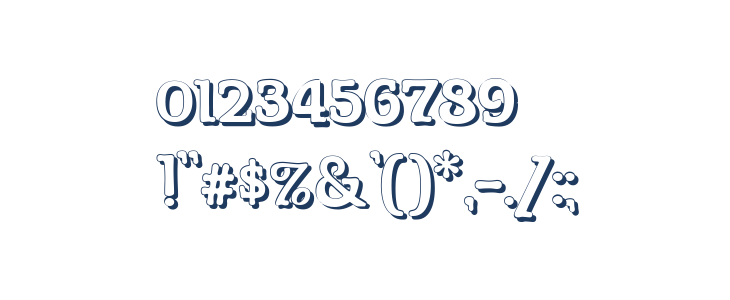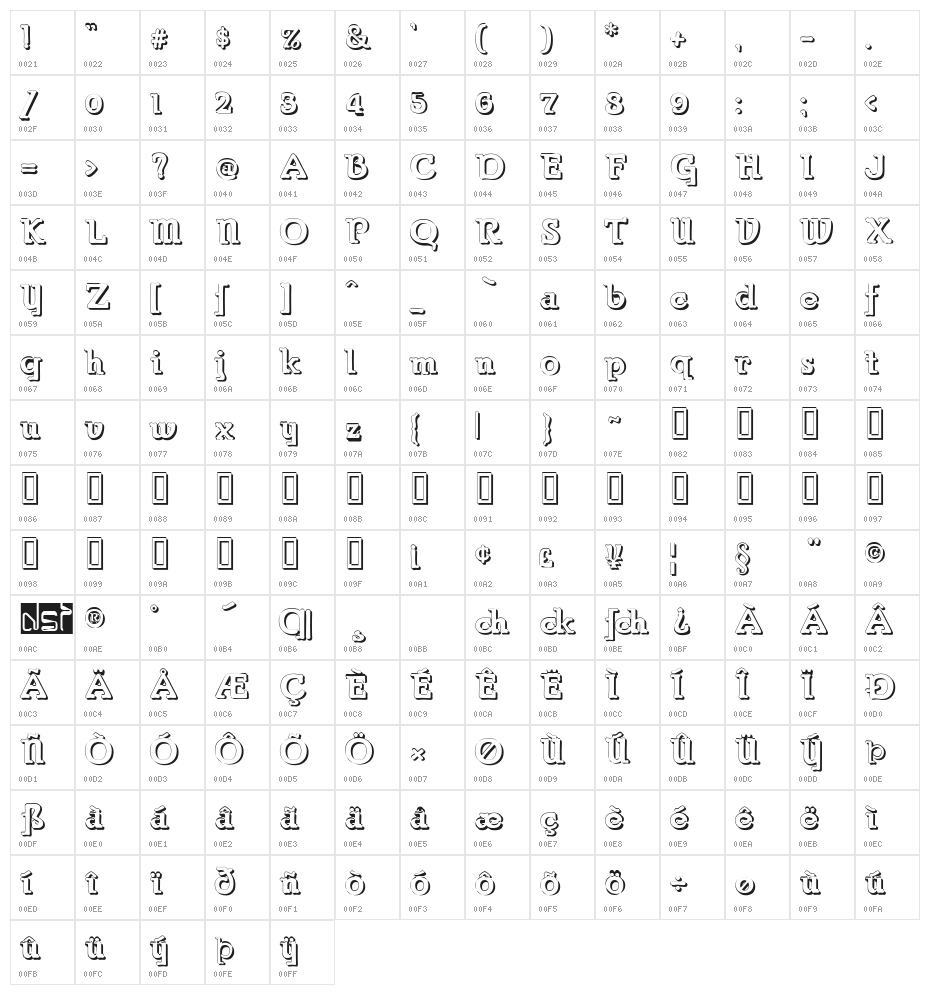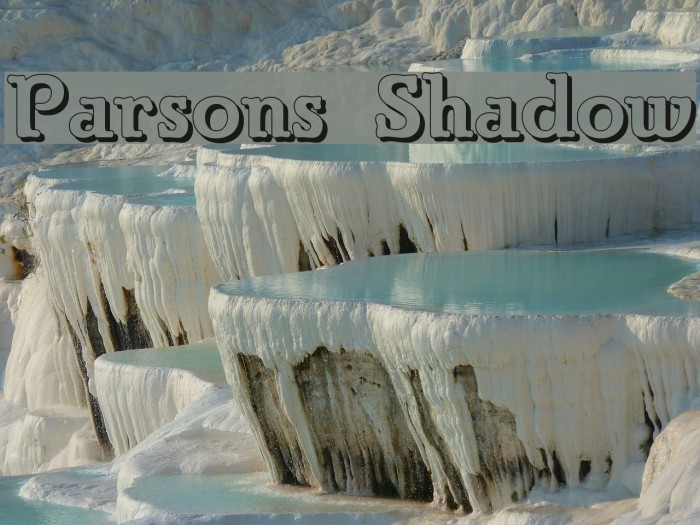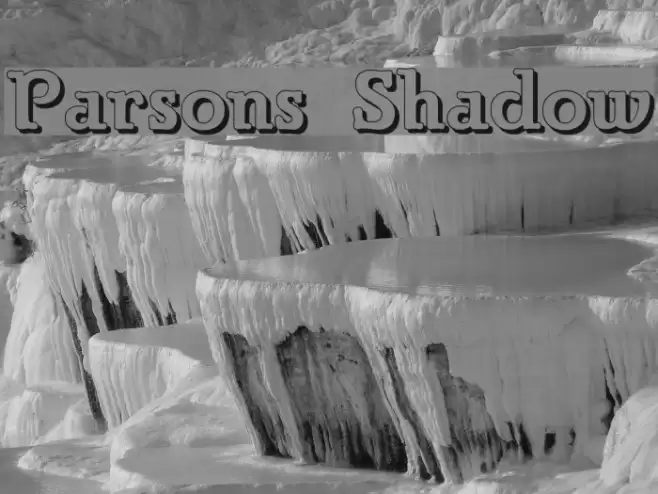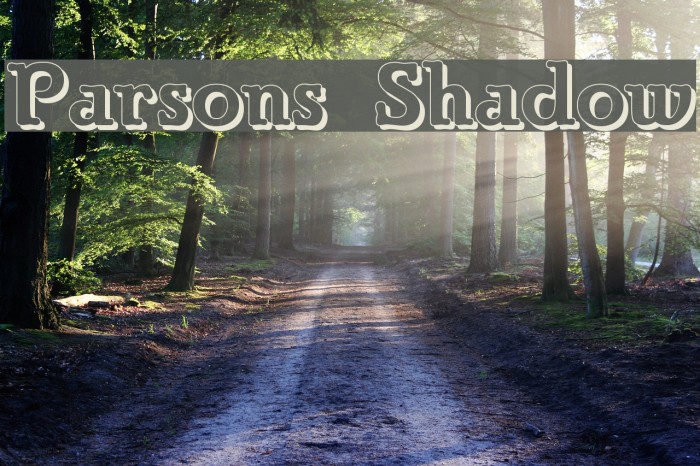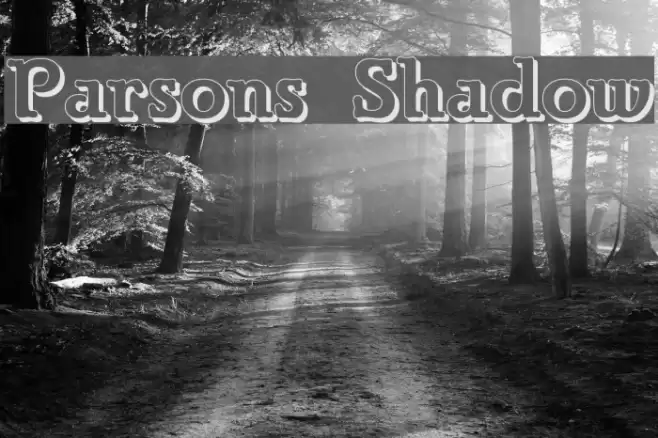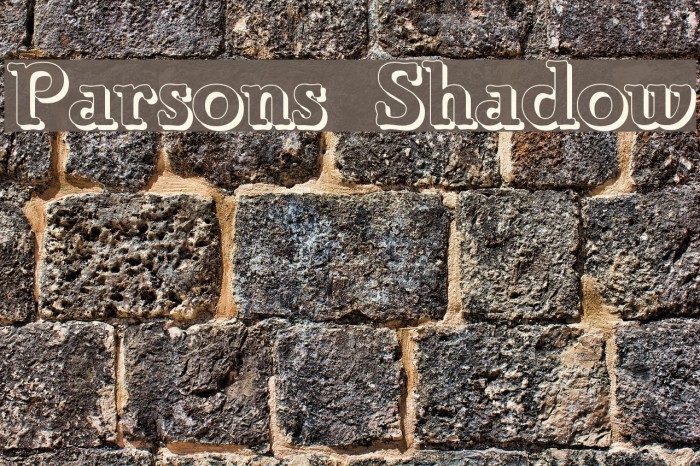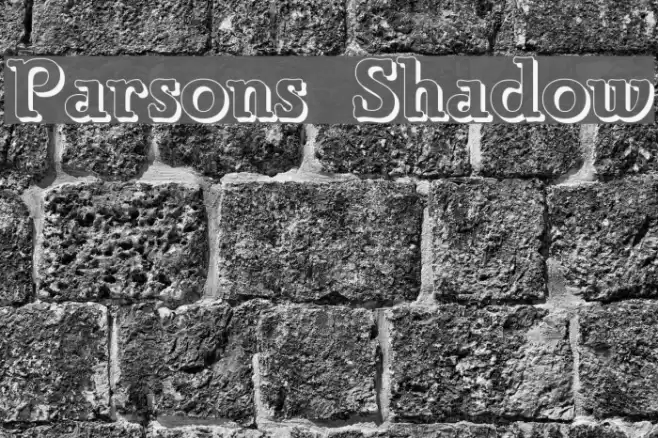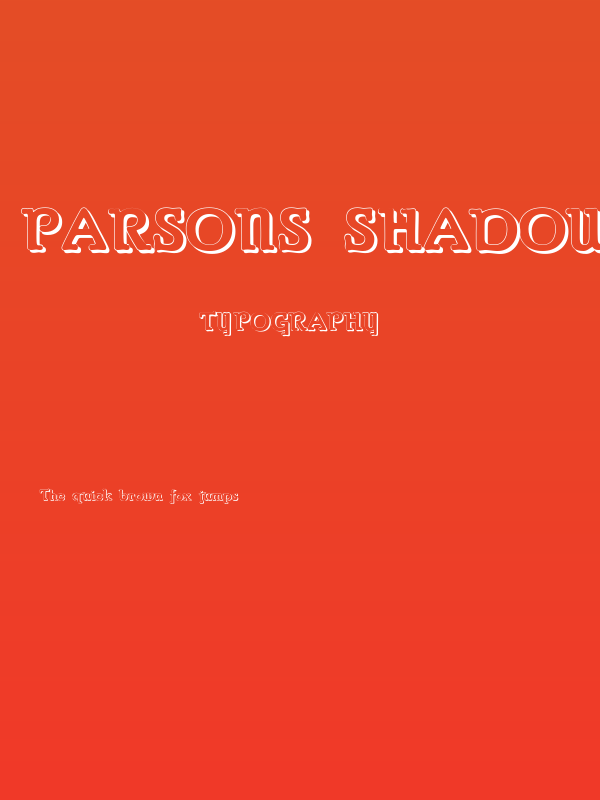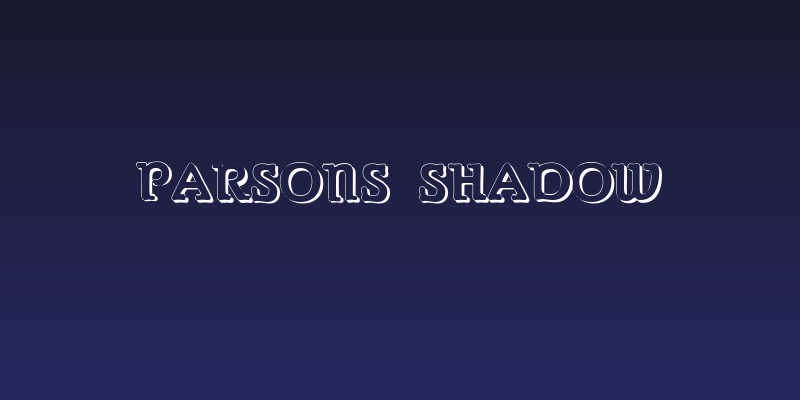
This font features a bold and striking design with a shadow effect that gives it a three-dimensional appearance. The characters are well-defined with a strong presence, making them stand out on any page. The uppercase and lowercase letters maintain a consistent style, with each character exhibiting a unique blend of classic and modern elements. The numbers and special characters are equally bold, ensuring uniformity across all text. The shadow effect adds depth, making it ideal for eye-catching designs.